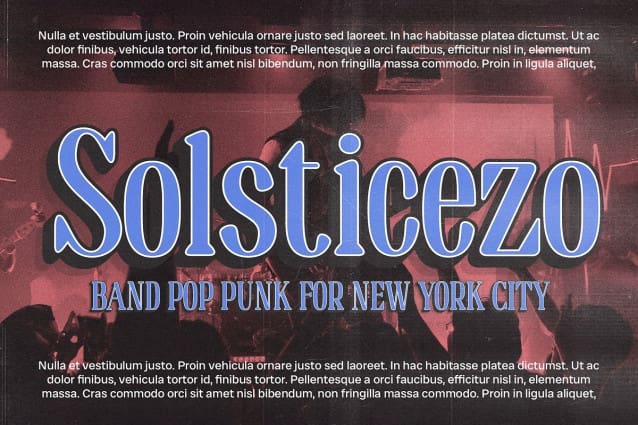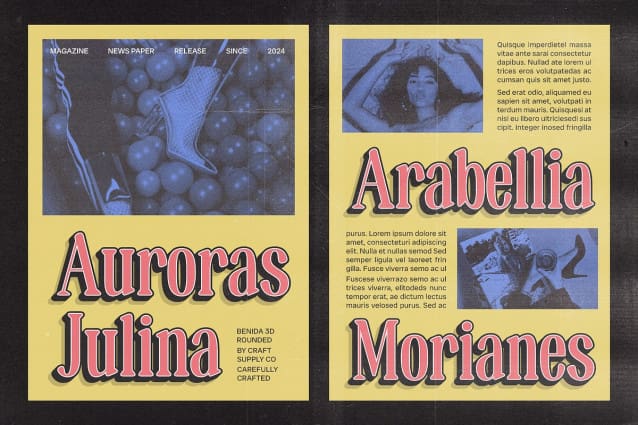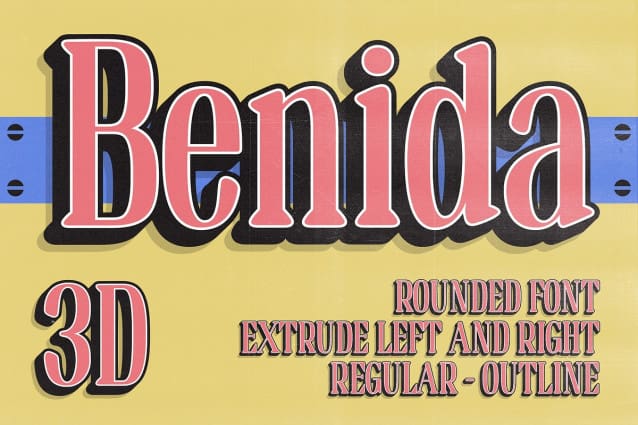
Benida Rounded 3D Font
Benida Rounded 3D Font is a condensed serif font that marries elegance with visual uniqueness. Featuring slim proportions and gracefully rounded edges, it delivers a modern yet sophisticated look. The rounded shapes offer a smooth, refined appearance that stands out in various design contexts.
Enhanced Visual Depth The 3D effect in Benida Rounded adds significant dimension and depth, elevating the font from a standard design to a more engaging and visually dynamic option. This effect enhances the font’s presence, making it ideal for applications where a standout and refined look is essential.
Perfect for Elegant Branding Ideal for logos, headlines, and promotional materials, Benida Rounded 3D provides a captivating and professional touch. Its elegant, modern aesthetic combined with the added visual depth makes it a perfect choice for designs that aim to make a sophisticated and impactful statement. Whether for high-end branding or striking editorial layouts, this font ensures a memorable and polished appearance.